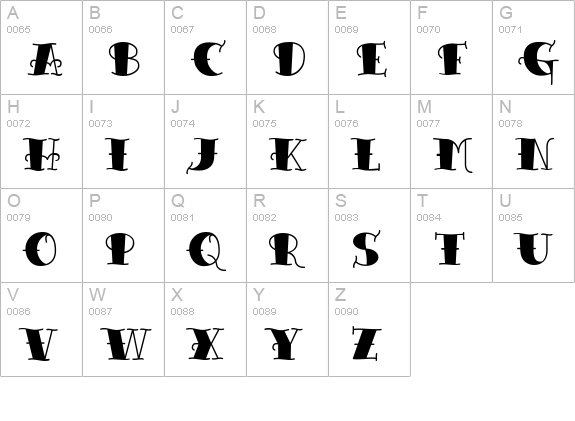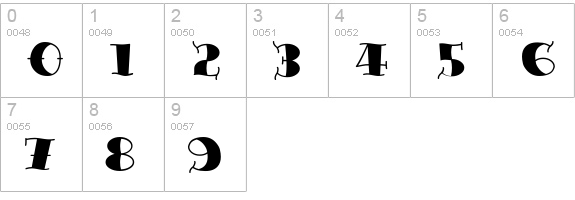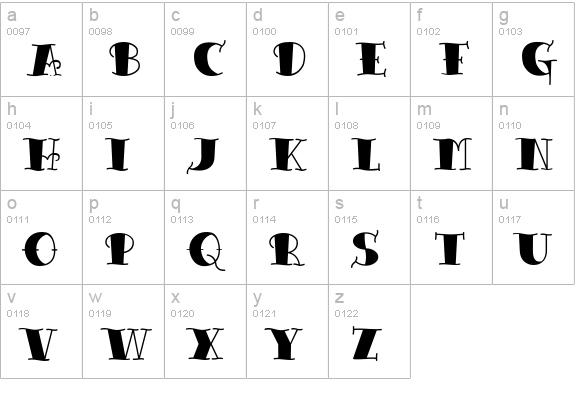
TattooLetteringBlack Font Details
Introducing TattooLetteringBlack font - a bold and edgy typeface perfect for adding a touch of attitude to your designs. With its strong, intricate lettering and unique style, this font is sure to make a statement. Whether you're looking to create a tattoo design, a logo, or just want to add some flair to your projects, TattooLetteringBlack font has you covered. And the best part? This font is completely free to download at FontsMarket.com. That's right, you can get your hands on this striking typeface without spending a dime. So why wait? Add TattooLetteringBlack font to your collection today and let your creativity shine!